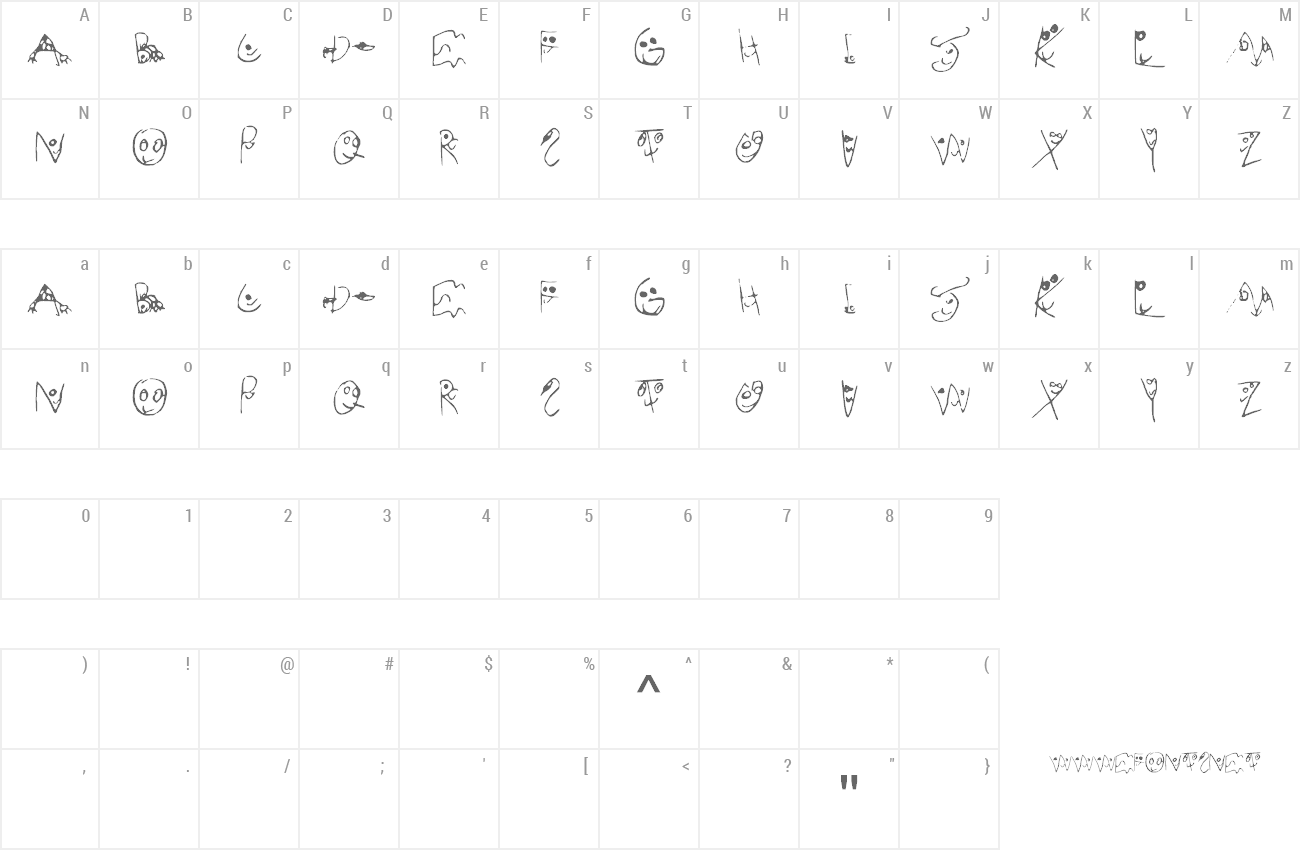
| Font name: | Reddit Face |
| Author: | Bill Bones |
| Note by Bill Bones | |
Redditor's son was asked by his kindergarten teacher to write the alphabet. Hopefully he'll get some use out of this! Please note, the file does not contain lower case or punctuation. Just caps. |